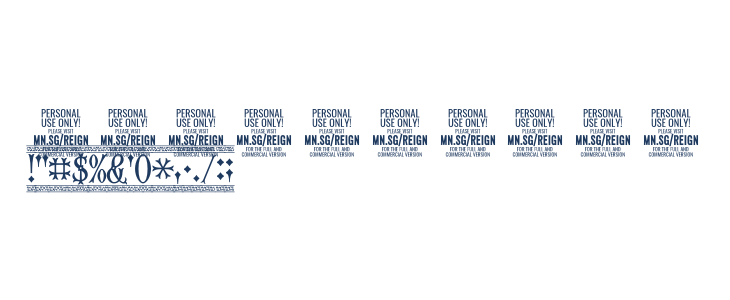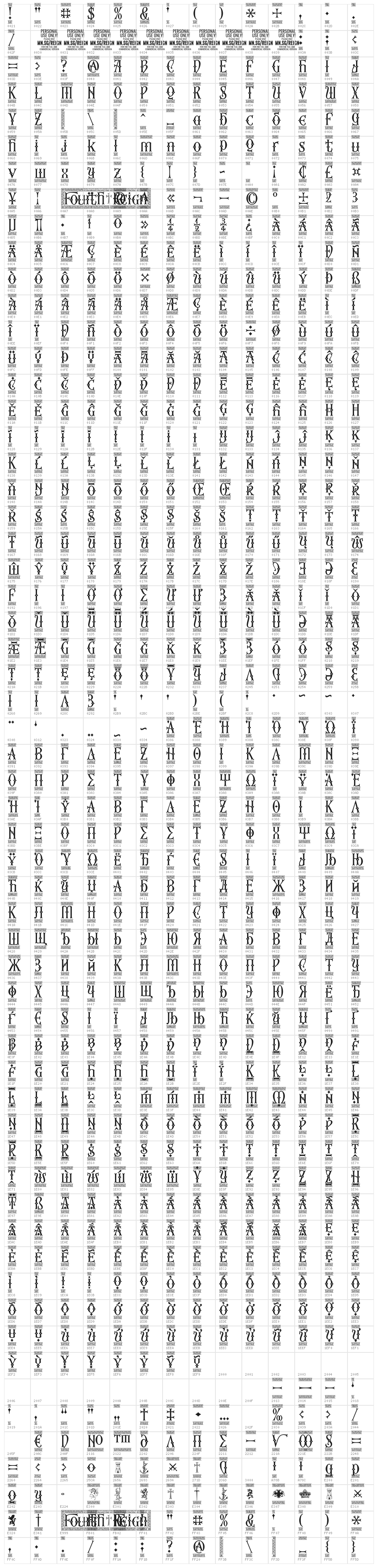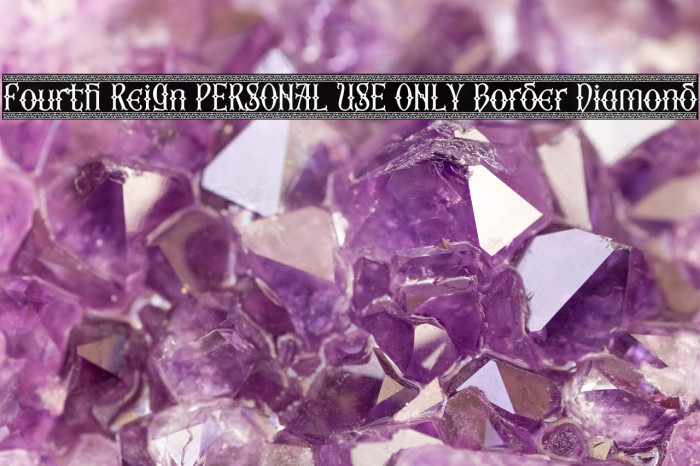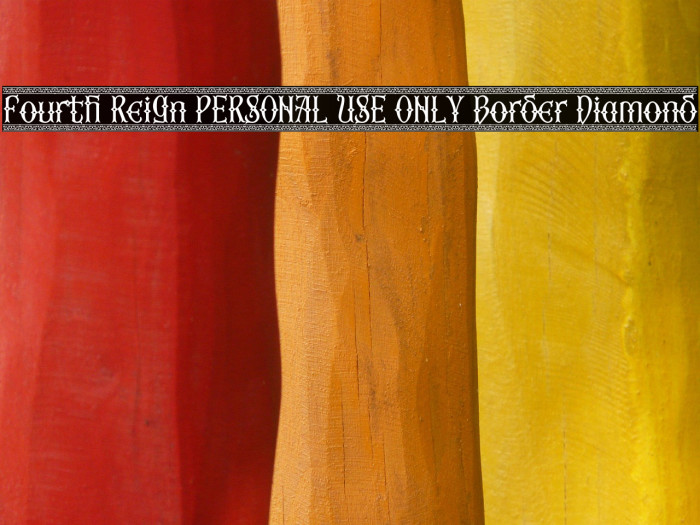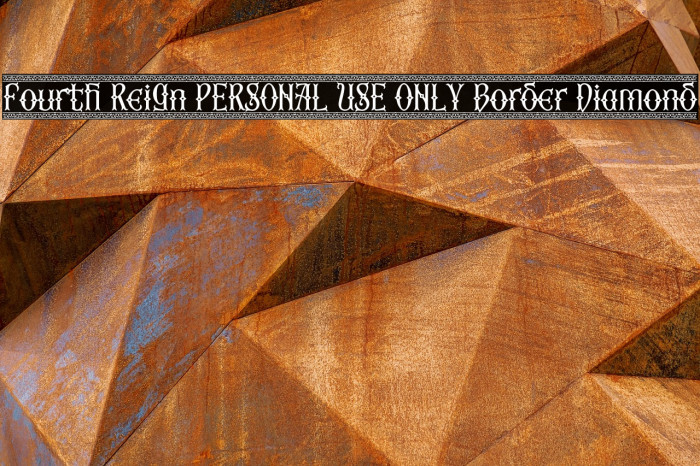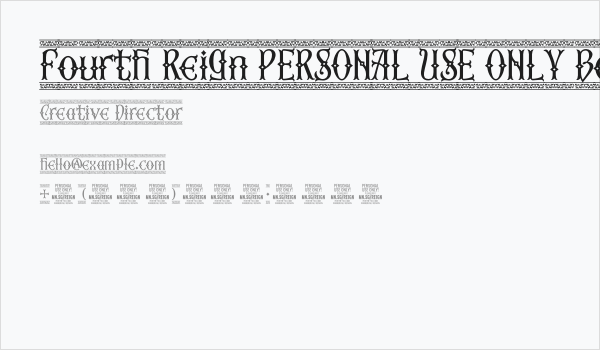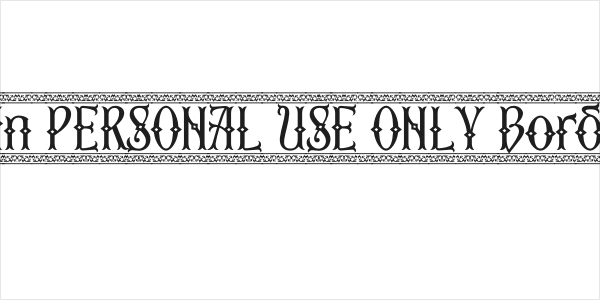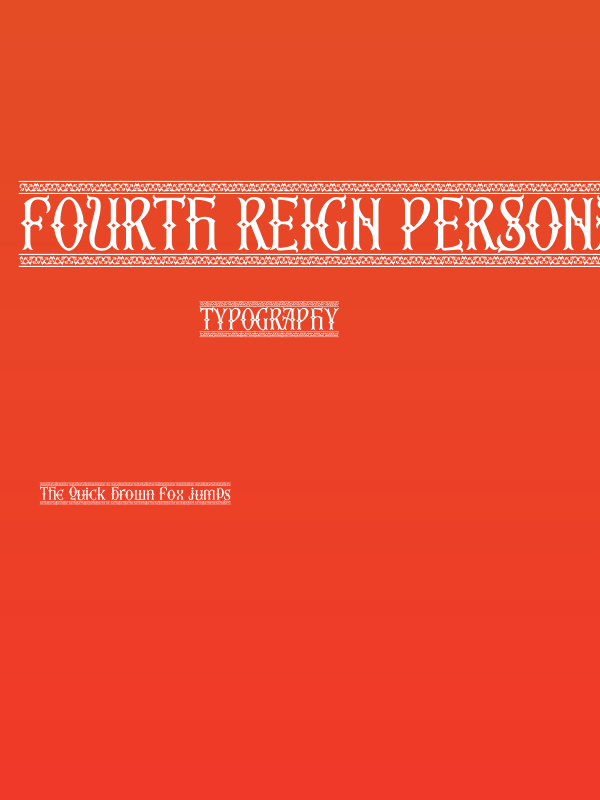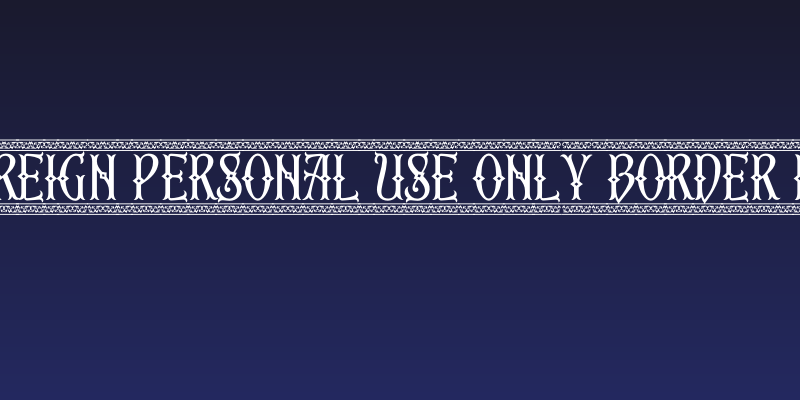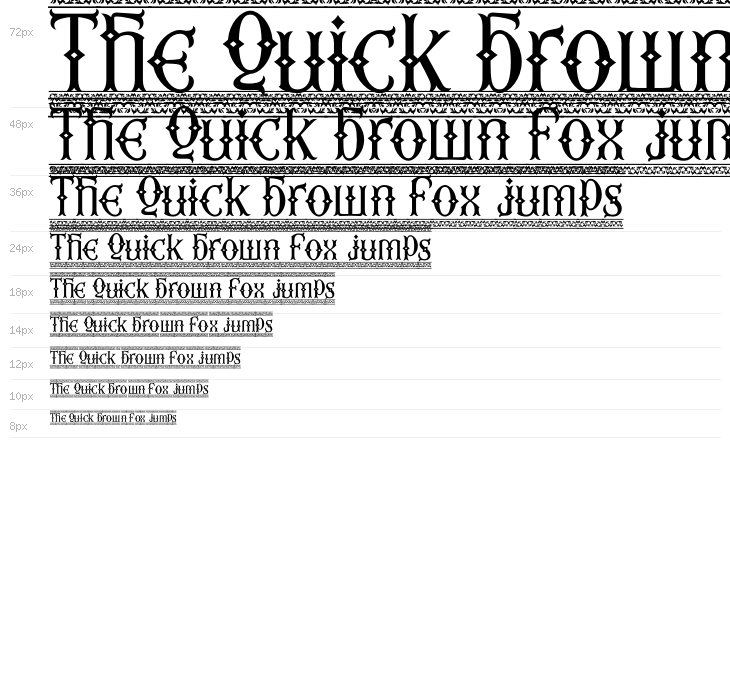
Fourth Reign PERSONAL USE ONLY Border Diamond Font
Fourth Reign PERSONAL USE ONLY Border Diamond Description
This font features an intricate and decorative style, characterized by its ornate and elaborate letterforms. Each character is designed with unique embellishments, giving it a regal and medieval appearance. The uppercase and lowercase letters maintain a consistent style, with sharp edges and pointed serifs that add to its dramatic flair. The numbers and special characters follow the same ornate design, making the font cohesive and visually striking. The overall aesthetic is reminiscent of historical scripts, with a modern twist that makes it suitable for contemporary design projects.
| Proposed Projects | Ideal for use in fantasy-themed designs, book covers, posters, and branding that requires a touch of elegance and historical charm. |